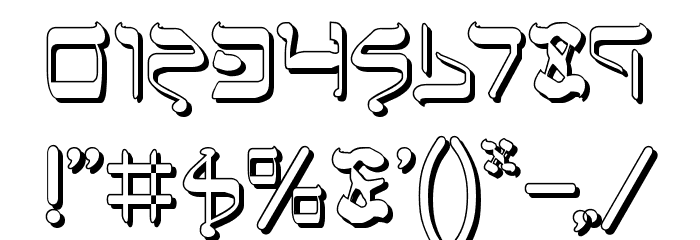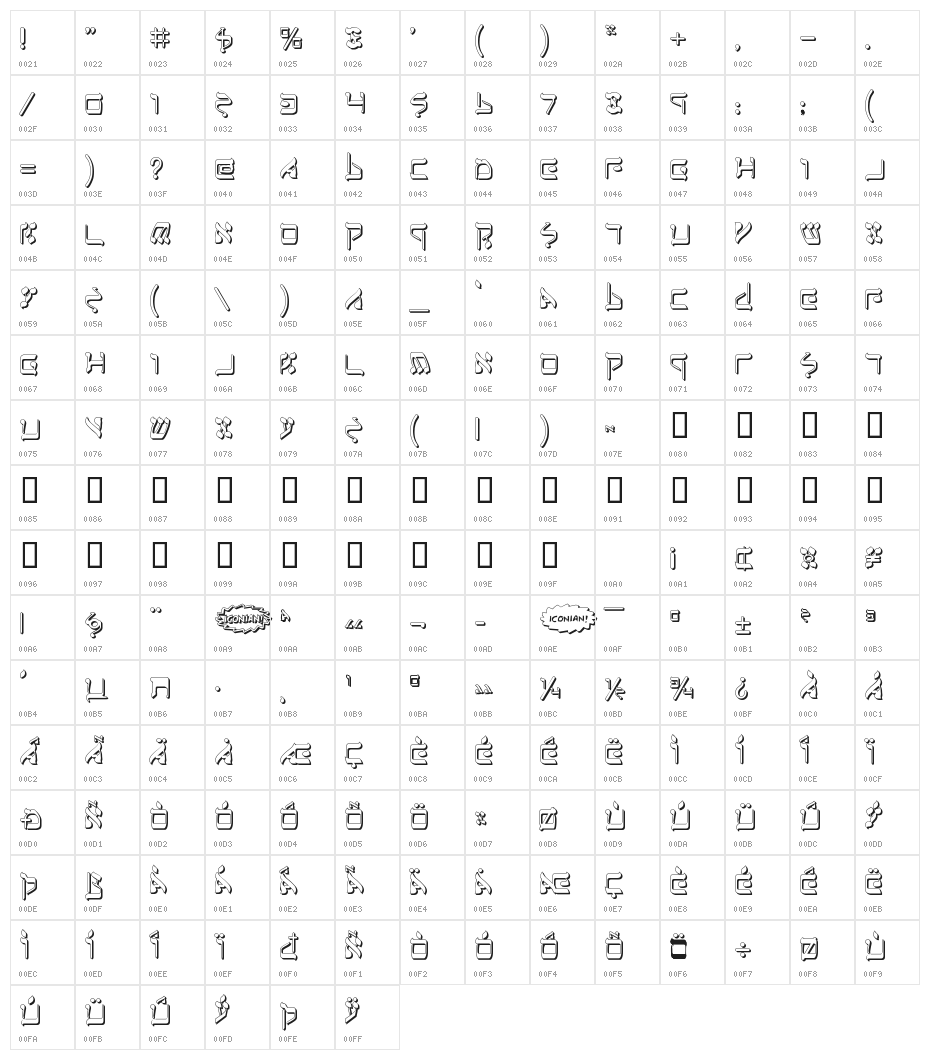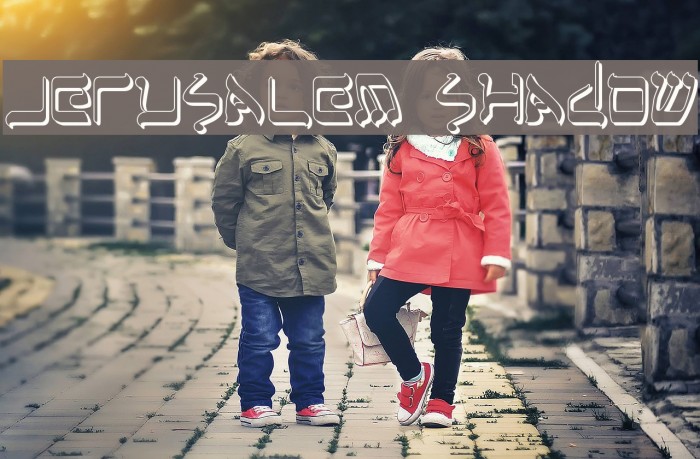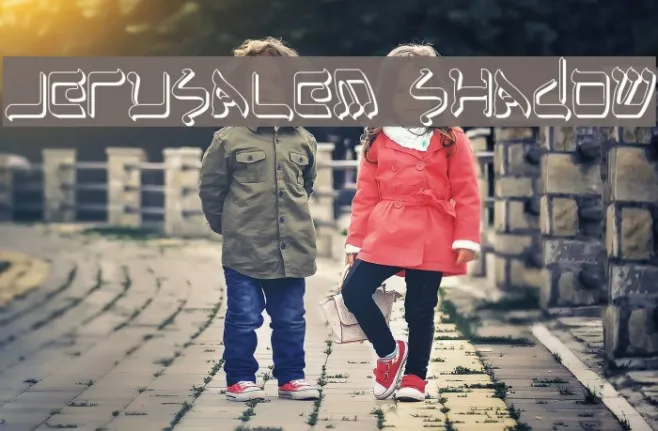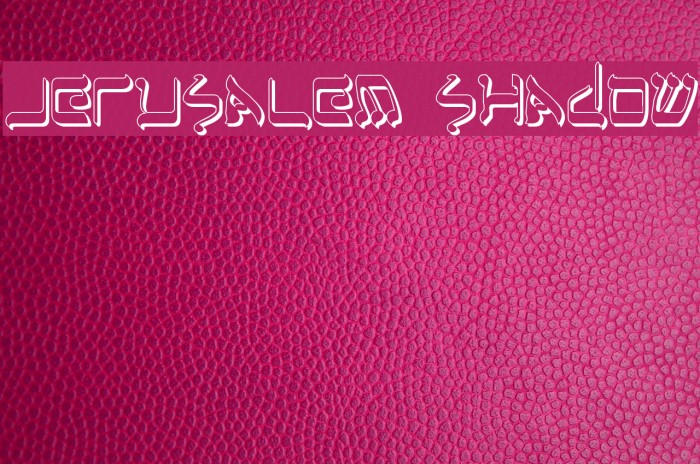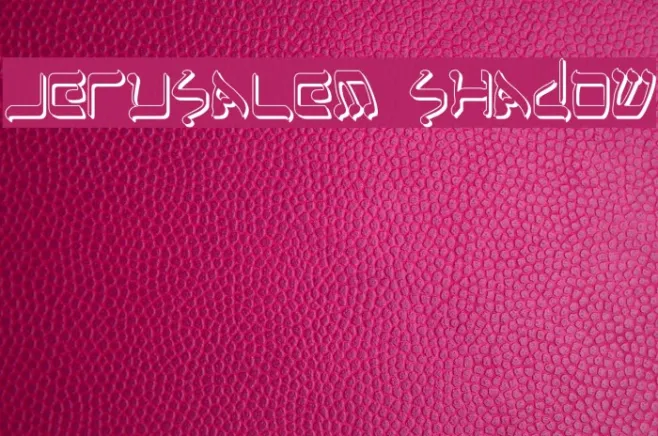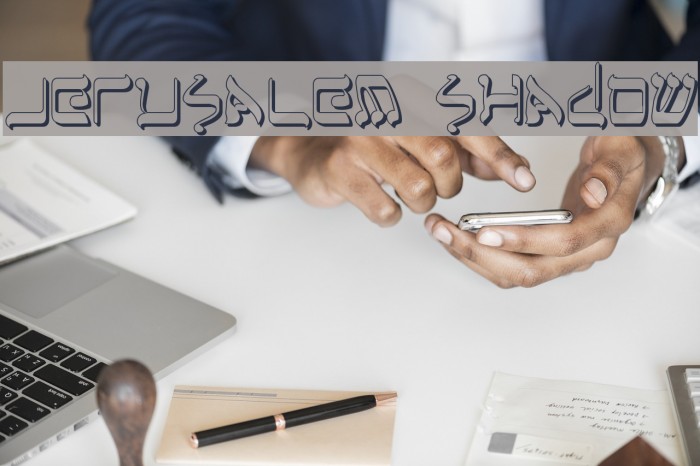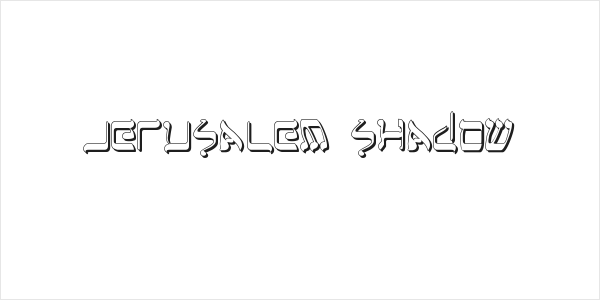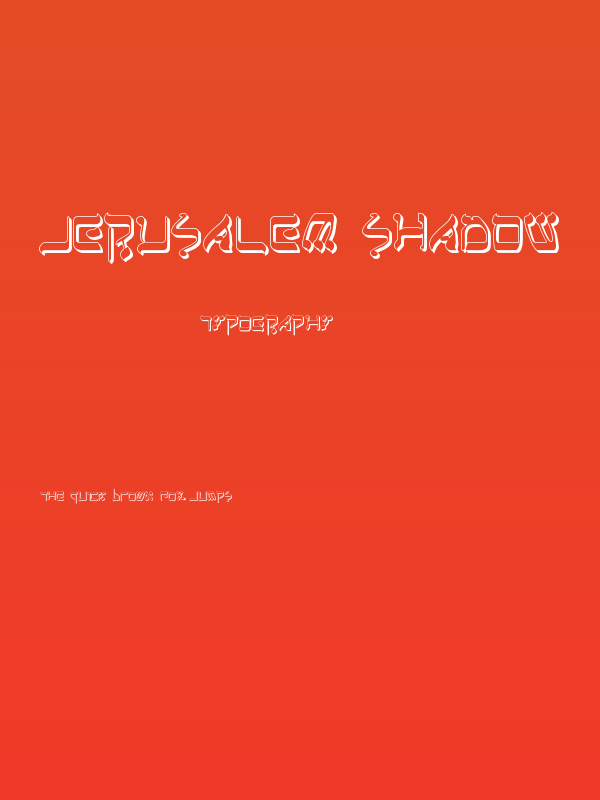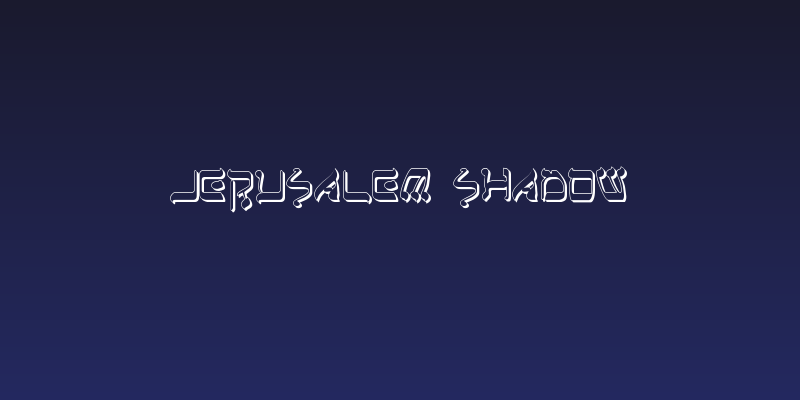
Jerusalem Shadow Font
Jerusalem Shadow Description
This font features a bold, shadowed design with a futuristic and geometric aesthetic. The characters are outlined with a distinct shadow effect, giving them a three-dimensional appearance. The style is highly decorative, with angular lines and sharp edges that create a sense of movement and dynamism. Each letter is uniquely crafted, maintaining consistency in the shadow placement, which enhances the overall visual impact. The font is eye-catching and ideal for projects that require a strong visual presence. It is particularly suited for headlines, posters, and branding materials where a modern and edgy look is desired.
Proposed ProjectsIdeal for headlines, posters, branding, and any project needing a modern, edgy look.